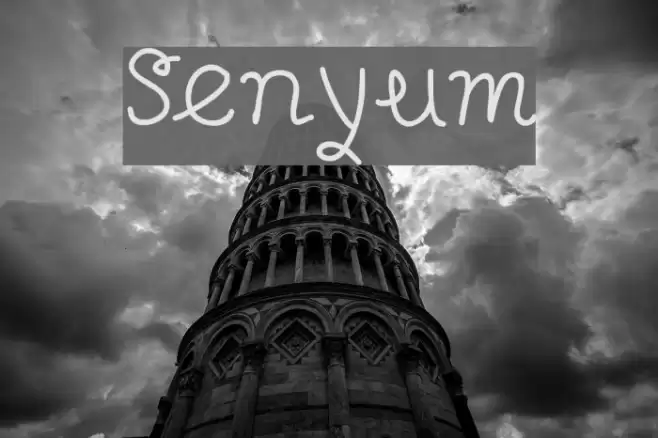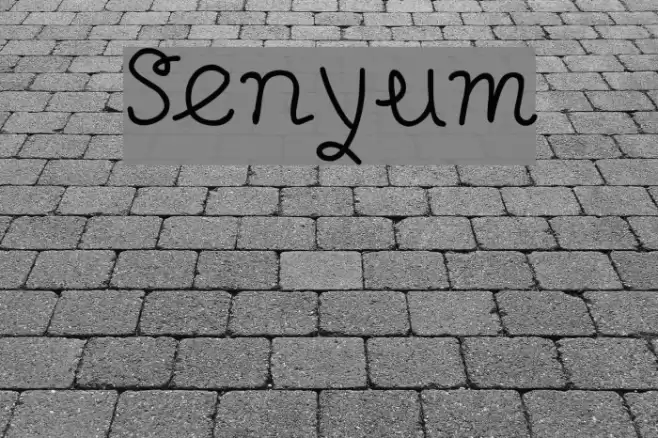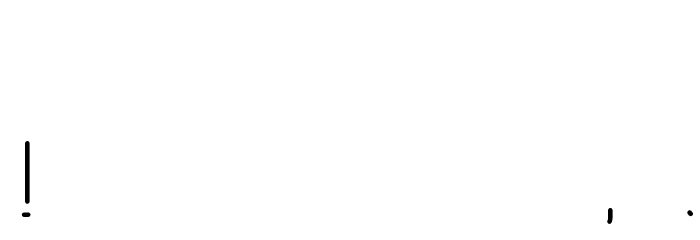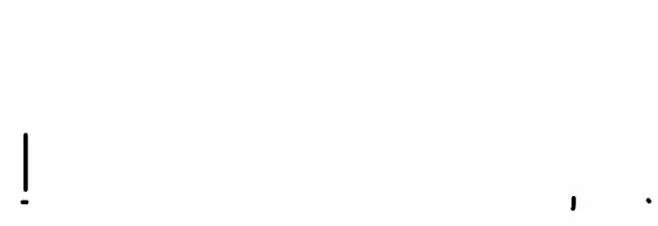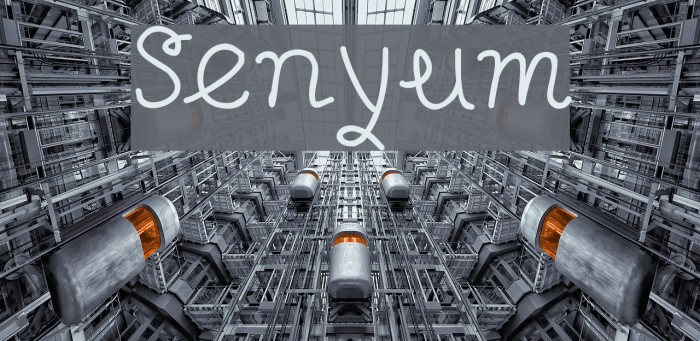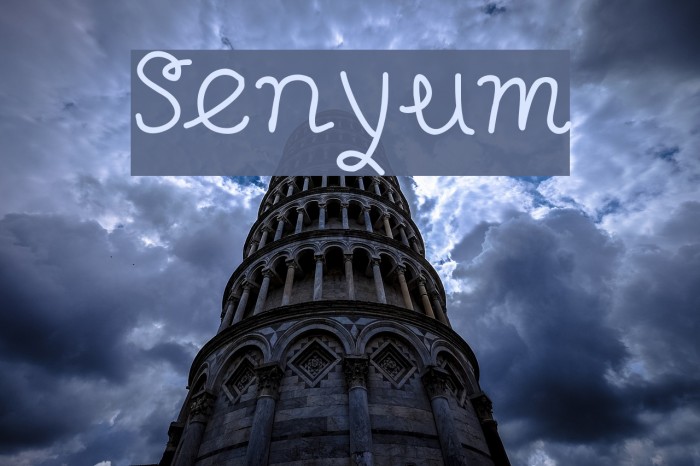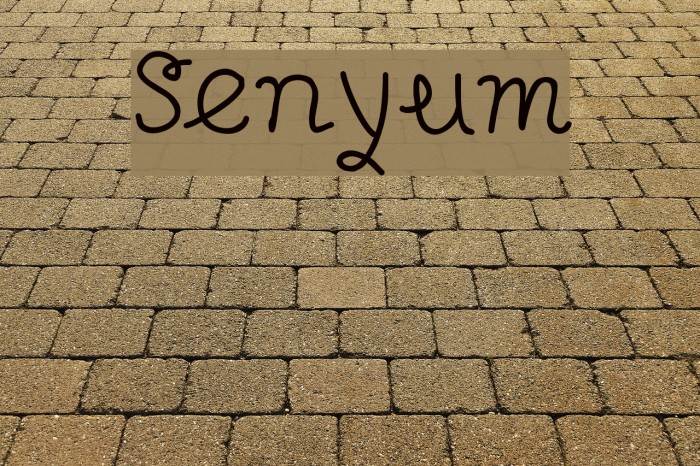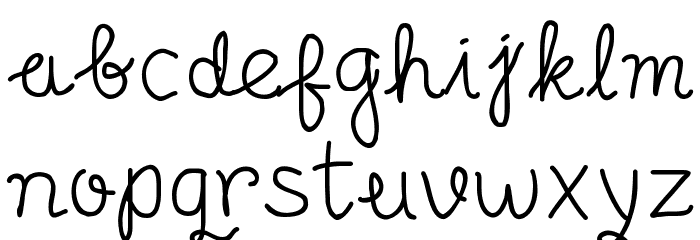
Senyum Font
Senyum Description
This font features a playful and whimsical design, characterized by its curly and looping strokes. The letters have a hand-drawn appearance, with each character exhibiting unique flourishes and embellishments. The uppercase letters are bold and expressive, while the lowercase letters maintain a consistent style with slightly exaggerated curves. The overall look is casual and friendly, making it suitable for projects that require a touch of personality and charm. The font includes basic punctuation and special characters, enhancing its versatility for various design needs.
A playful, hand-drawn font with curly, whimsical strokes from Dingbats fonts.
- Proposed Projects: Ideal for children's books, greeting cards, playful branding, and creative posters.
- Use Case: Headlines, Logos, Creative projects